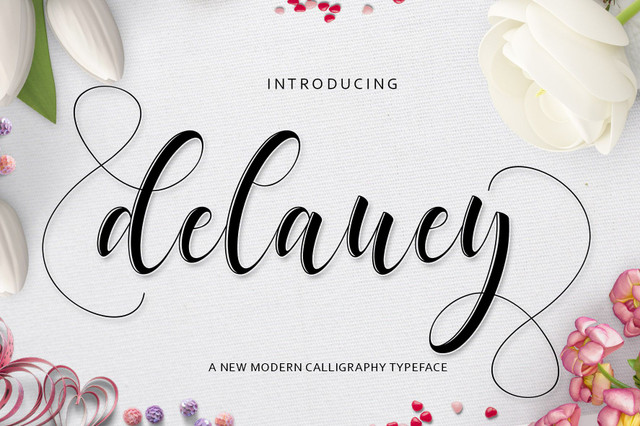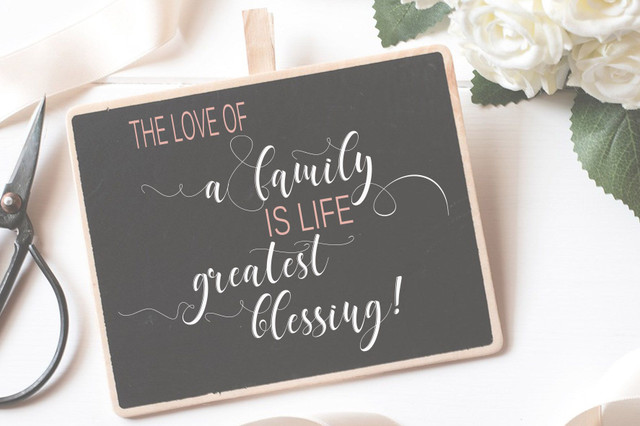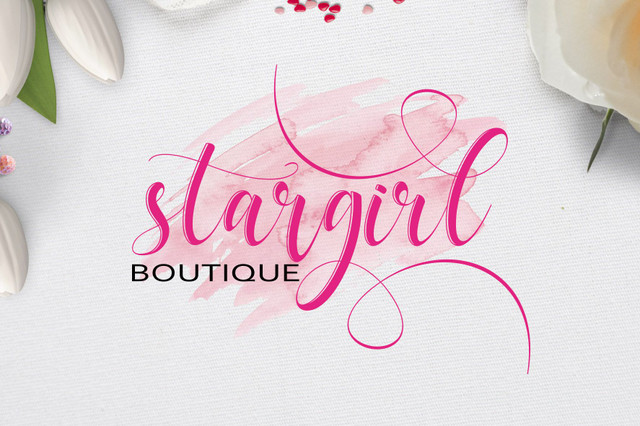
Delaney Script /MODERN CALLIGRAPHY TYPEFACE
especially those who like design ... I want to introduce my "Delaney Script" Items to my friends all ... This font is perfect for making logotype, invite, business card, and many other uses ..